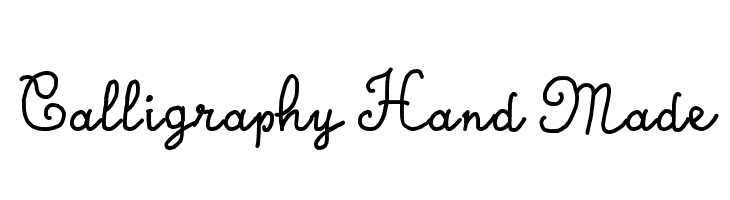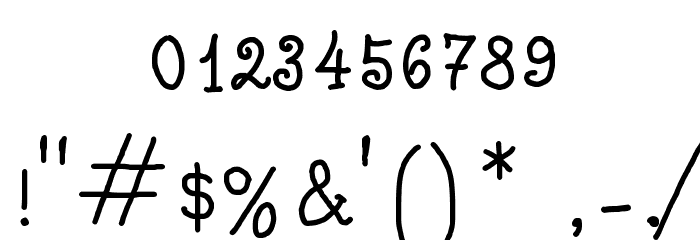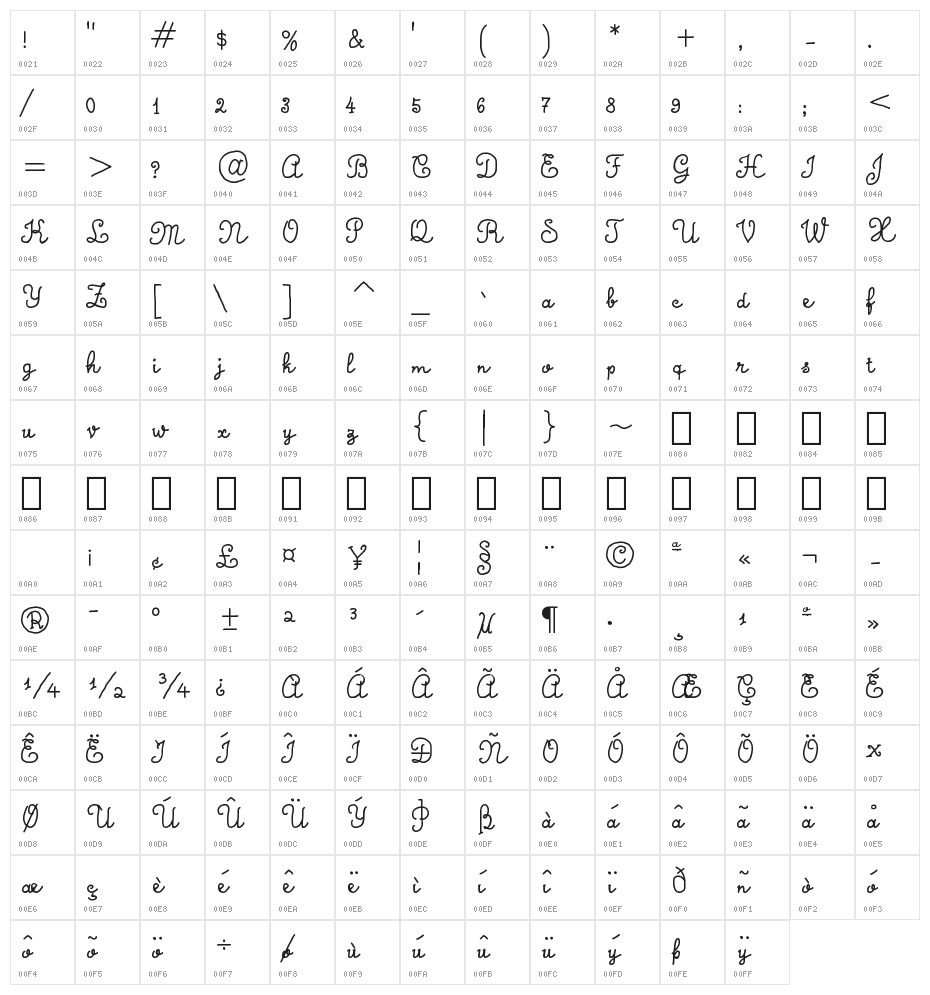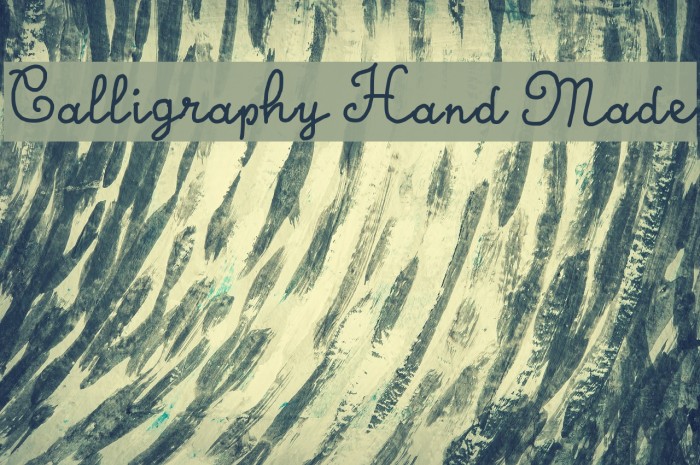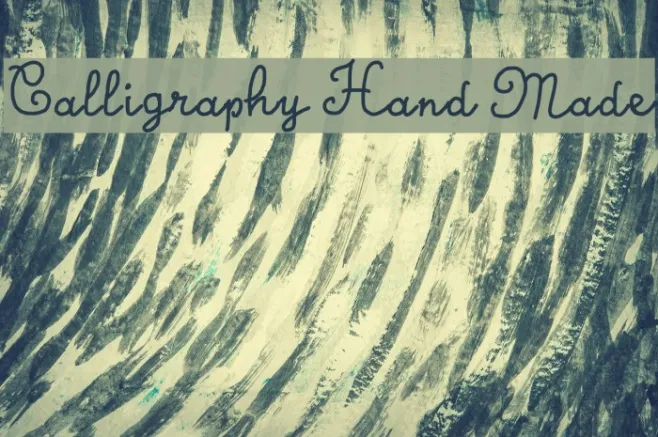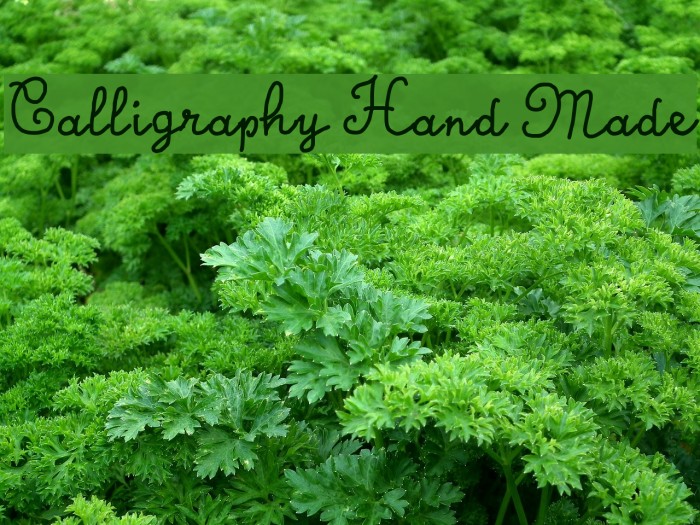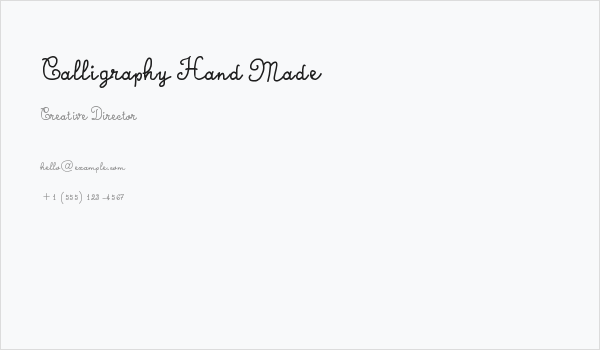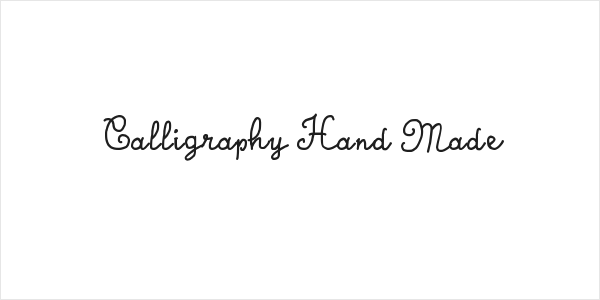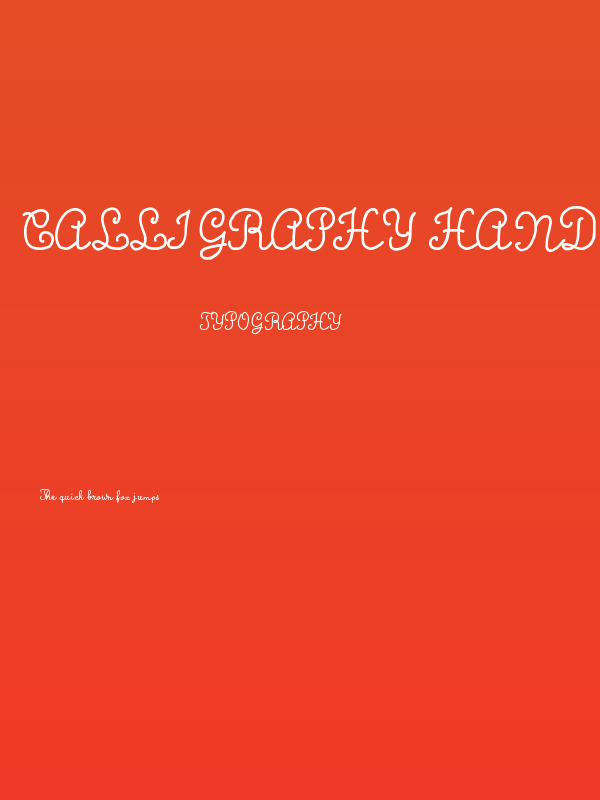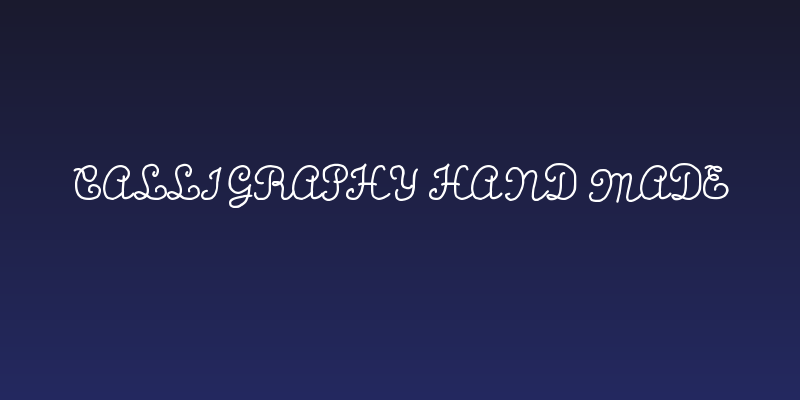
Calligraphy Hand Made Font
Calligraphy Hand Made Description
This font exudes a handcrafted, calligraphic style with elegant, flowing curves and a personal touch. The uppercase letters are ornate, featuring loops and swirls that add a sense of sophistication and artistry. The lowercase letters maintain a consistent flow, complementing the uppercase with a slightly more subdued elegance. Numbers are clear and legible, while special characters retain the same artistic flair, making them suitable for decorative purposes. The overall appearance is both classic and artistic, ideal for projects that require a personal, handwritten feel.
| Overall Style | Classic, Decorative |
| Proposed Projects | Ideal for wedding invitations, greeting cards, personal branding, and artistic projects that require a personal touch. |